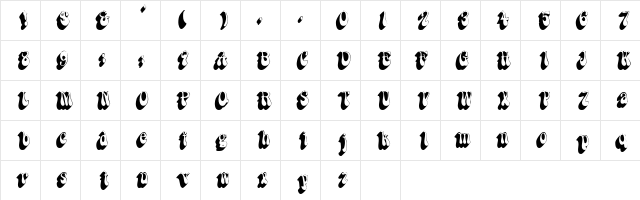
DanabelShadowSSK Regular
Design Context for DanabelShadowSSK Typeface
DanabelShadowSSK is built around its visual character rather than neutral utility — its distinctive forms are designed to make an impression at display sizes.
Font Pairing: Pair with a clean neutral sans-serif for body copy to let DanabelShadowSSK's character lead without overwhelming the composition.
Pro Tip: Treat DanabelShadowSSK as the centrepiece of your typographic hierarchy. One strong heading set in a decorative face can carry an entire layout.